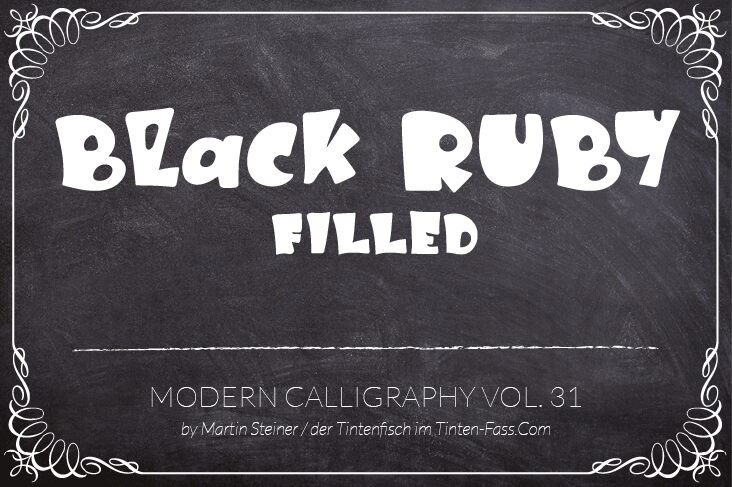
I want to introduce Black-Ruby-Filled Font:
This font suitable for your design project especially for branding packaging, lettering and others.
- multilingual letters (german, french, hispanic, italian, ...)
Black Ruby One